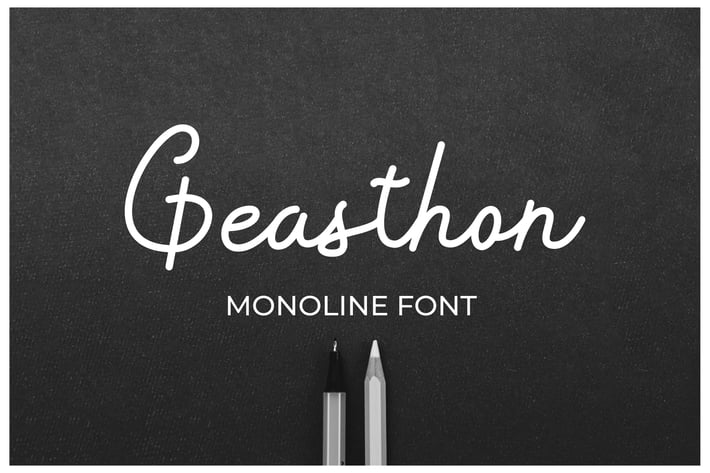
Geasthon - Monoline Font
IanMikraz
Geasthon - Monoline Font
So beautiful on invitation like greeting cards, branding materials, business cards, quotes, posters, and more!